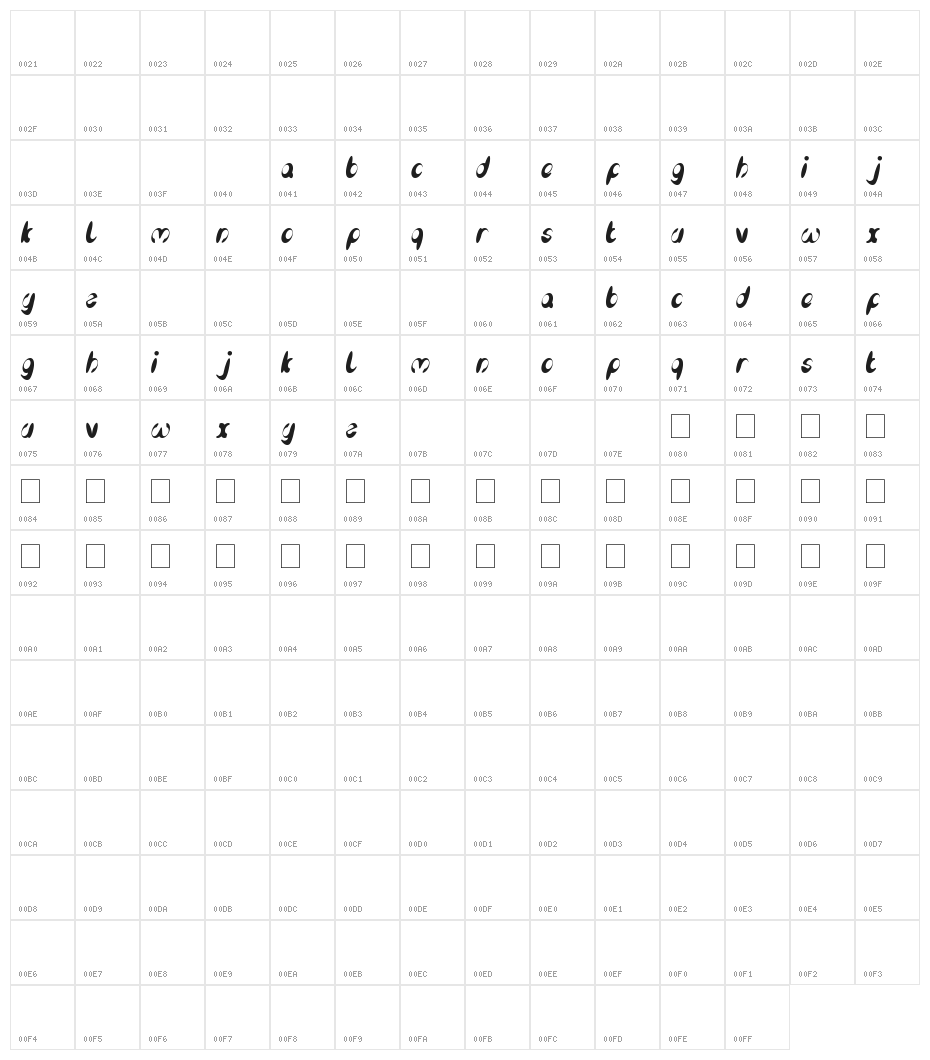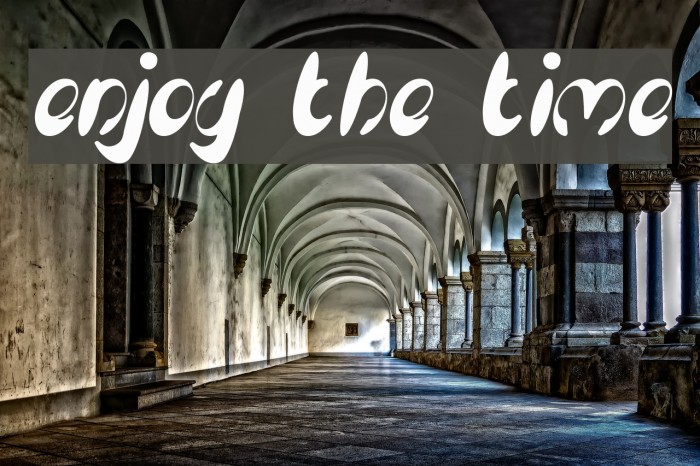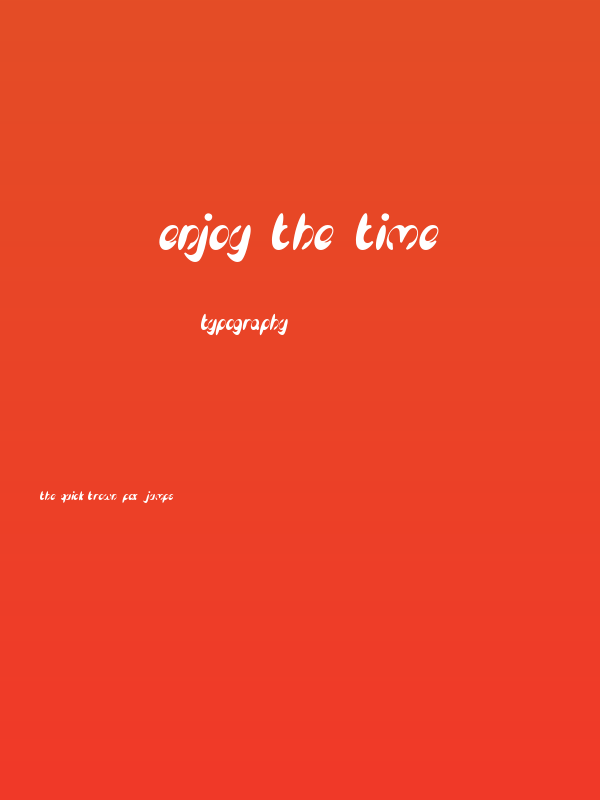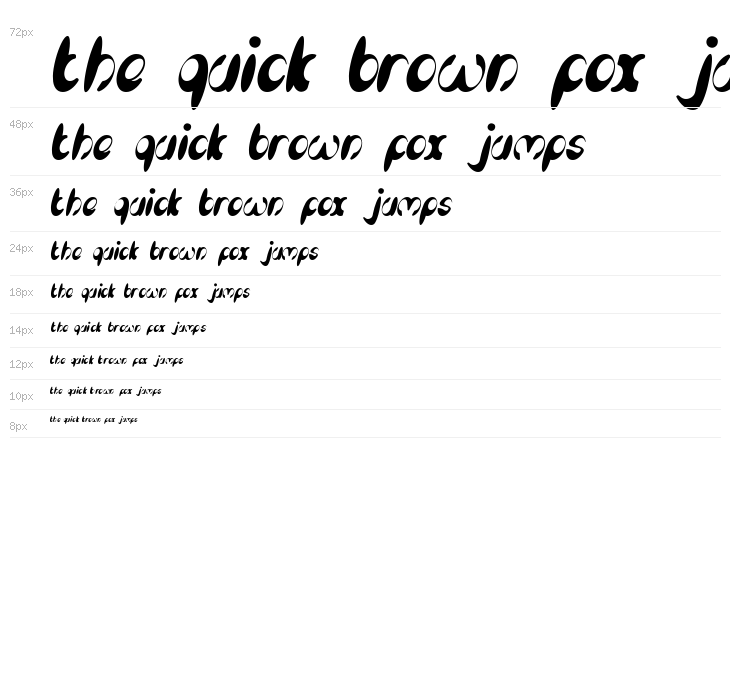
enjoy the time Font
enjoy the time Description
This font features a bold and playful style with a unique, artistic flair. The characters are rounded and fluid, giving a sense of movement and creativity. The strokes are thick and consistent, providing a strong visual impact. The design is reminiscent of brush strokes, with a modern twist that makes it stand out. The letters are closely spaced, enhancing the cohesive look of the text. This font is ideal for projects that require a touch of whimsy and boldness, making it perfect for creative branding, posters, and artistic designs.
| Proposed Projects | Ideal for creative branding, posters, artistic designs, and any project needing a whimsical touch. |